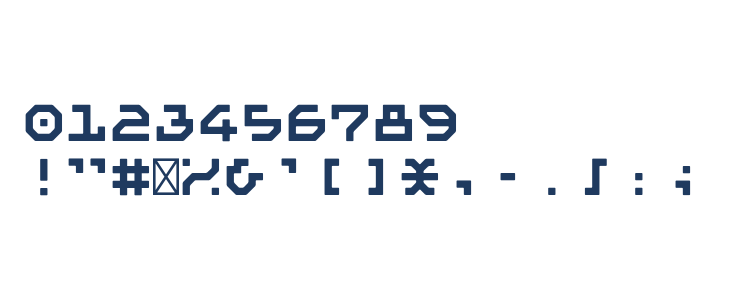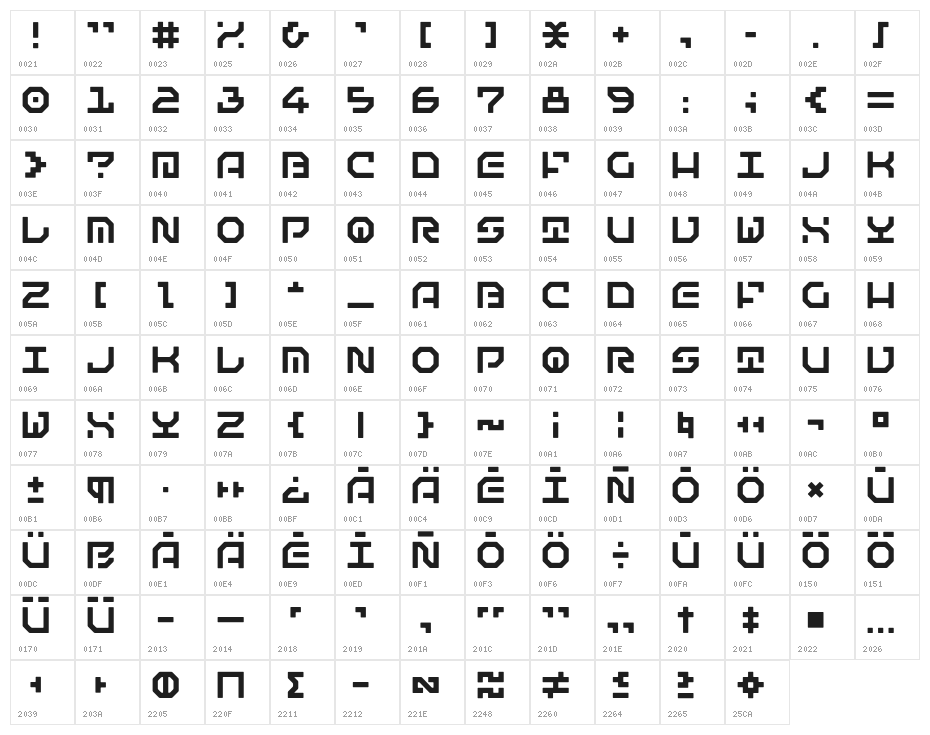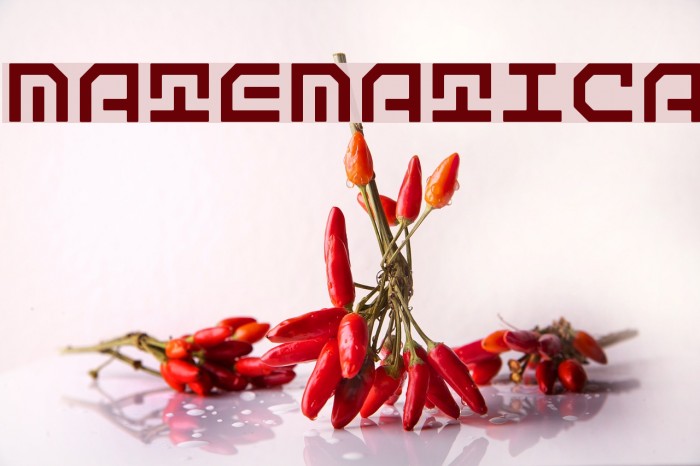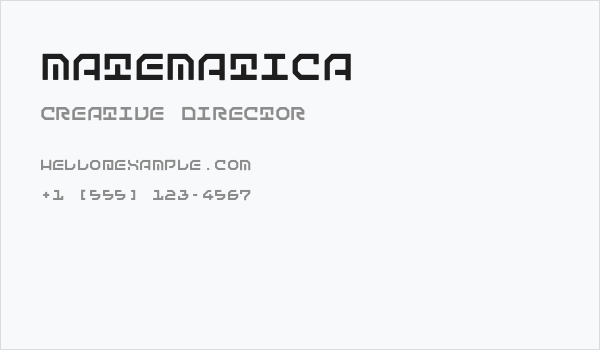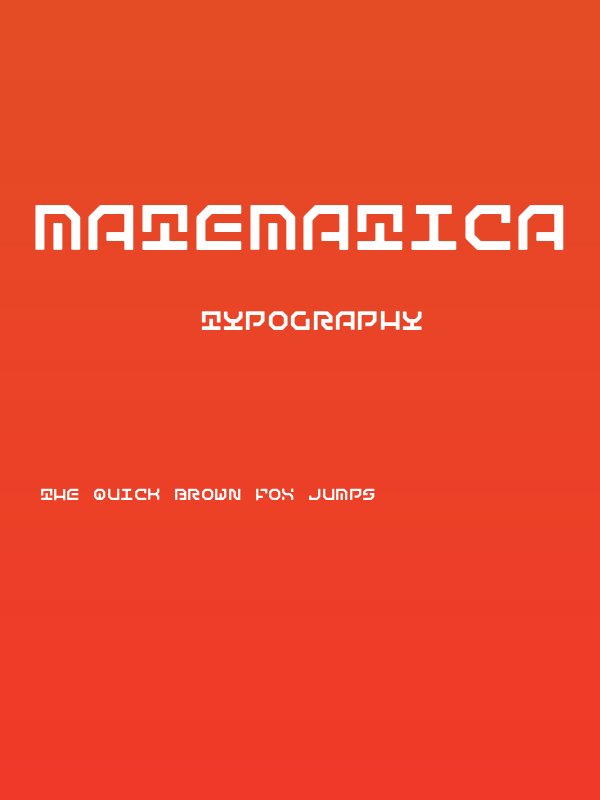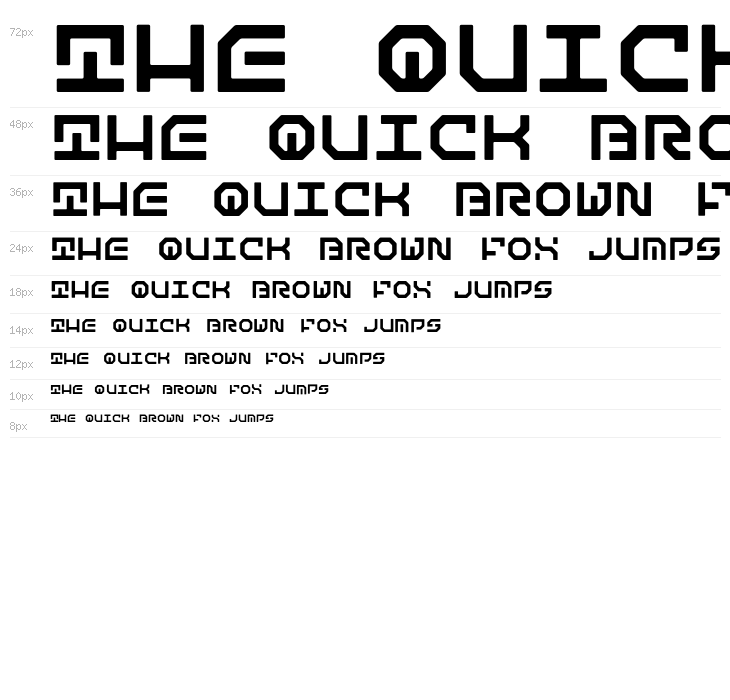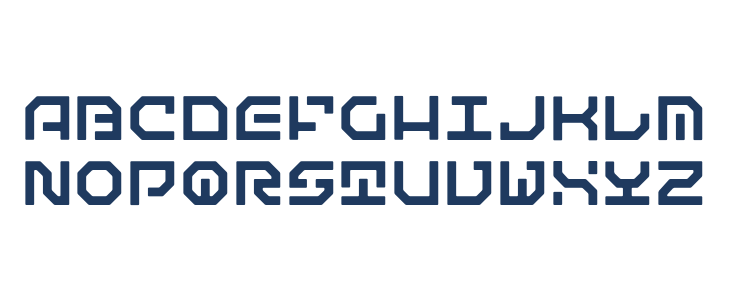
Matematica Font
Matematica Description
This font features a bold, geometric style with a futuristic and digital aesthetic. The characters are constructed with sharp angles and straight lines, giving it a mechanical and structured appearance. The uppercase and lowercase letters maintain a consistent height, contributing to a uniform look. The numerals and special characters follow the same design principles, ensuring coherence across all glyphs. This font's unique style makes it stand out, ideal for projects that require a modern and tech-savvy feel.
| Proposed Projects | Ideal for technology branding, video game titles, sci-fi movie posters, and digital interfaces. |